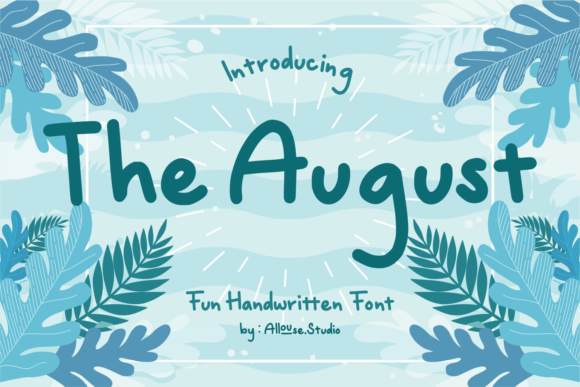
Dive into the whimsical world of The August Font, a charming script typeface crafted by allouse.studio. With its thick, hand-drawn letters and playful personality, this versatile font will add a touch of warmth and happiness to your next design project.
Imagine your words taking on a life of their own, dancing across the page with an irresistible charm. The August Font's graceful curves and playful strokes create a visual symphony that captures the eye and captivates the heart. Whether you're designing invitations, posters, logos, or social media graphics, this font will leave a lasting impression.
Let your creativity soar as you explore the endless possibilities of The August Font. Its thick, bold strokes make it perfect for creating eye-catching headlines and titles that demand attention. Its cheerful personality shines through in body text, adding a touch of whimsy and delight to your written message.
With The August Font, you can effortlessly convey a range of emotions, from joy and excitement to warmth and nostalgia. Its playful nature makes it ideal for crafting heartwarming invitations, whimsical posters, and enchanting logos. And its ability to evoke a sense of nostalgia makes it perfect for vintage-inspired designs and retro-themed projects.
Unleash your inner artist and let The August Font inspire your next masterpiece. With its charming personality and endless versatility, this font is the perfect tool for creating designs that connect with your audience on a deeper level. Embrace the magic of The August Font and watch your designs come alive.